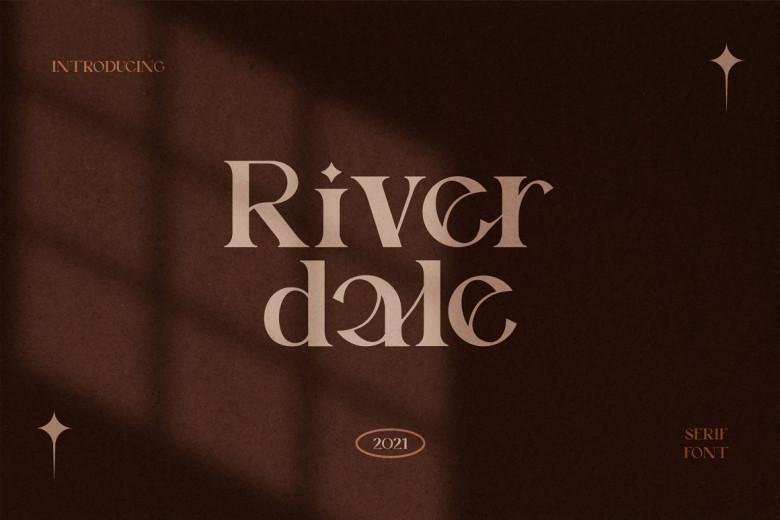
Riverdale Font
Riverdale Serif Font is an all caps font suitable for posters, magazine covers, apparel packaging and film headlines.
Riverdale Serif Font